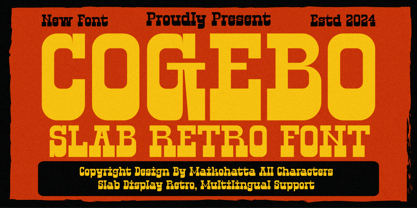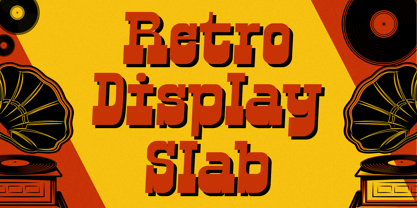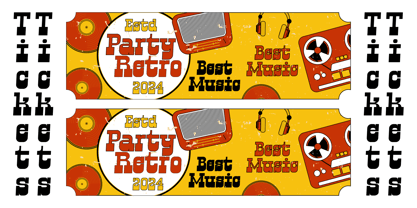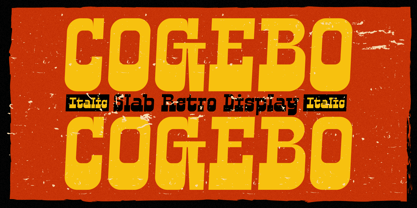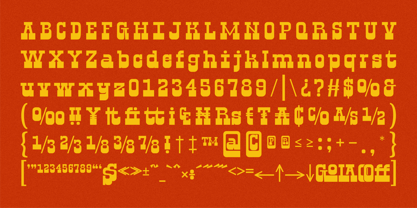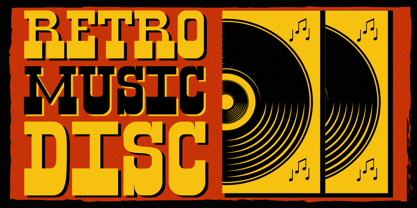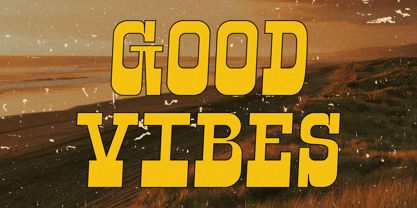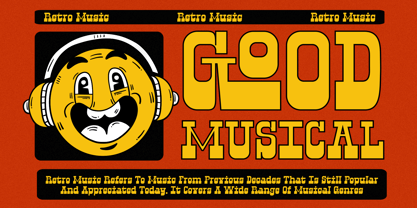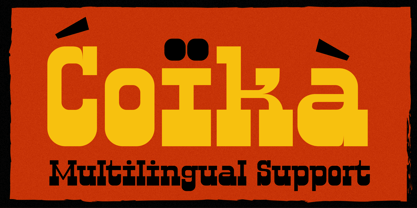
Cogebo
by Maikohatta
The Cogebo Font Family was designed by Gilang Ternadho and published by Maikohatta. Cogebo contains 2 styles and family package options. More about this family
Introducing our new product Cogebo - Slab Retro Font
This font is characterized by reflecting joy, cheerfulness and a light atmosphere with a handwritten style often found in comics or cartoons.
This font is perfect for projects that want to highlight elements of playfulness and fun, such as poster designs, invitation cards, comics, or promotional materials aimed at a younger audience or those looking for a fun feel.
Designers: Gilang Ternadho
Foundry: Maikohatta